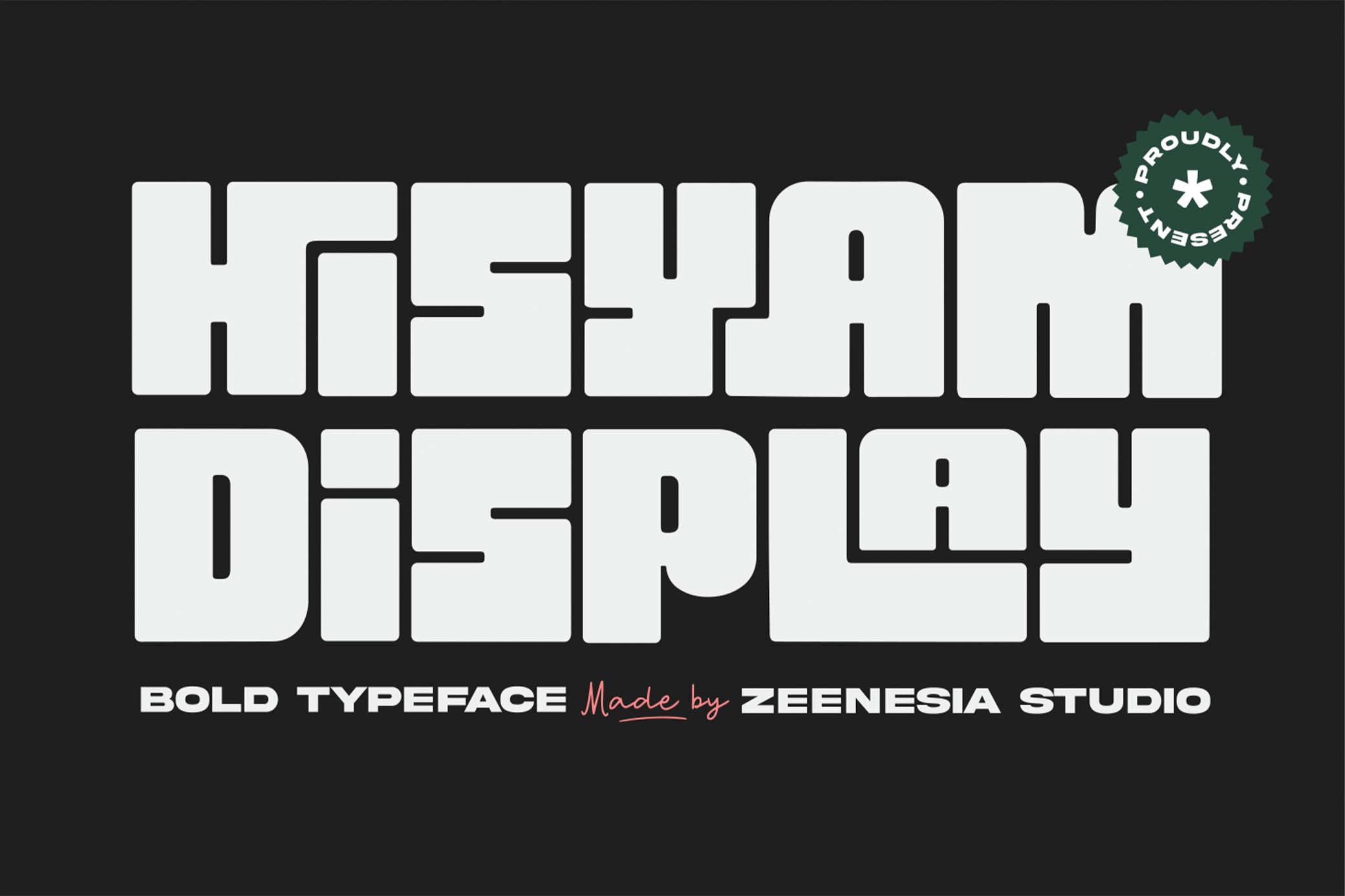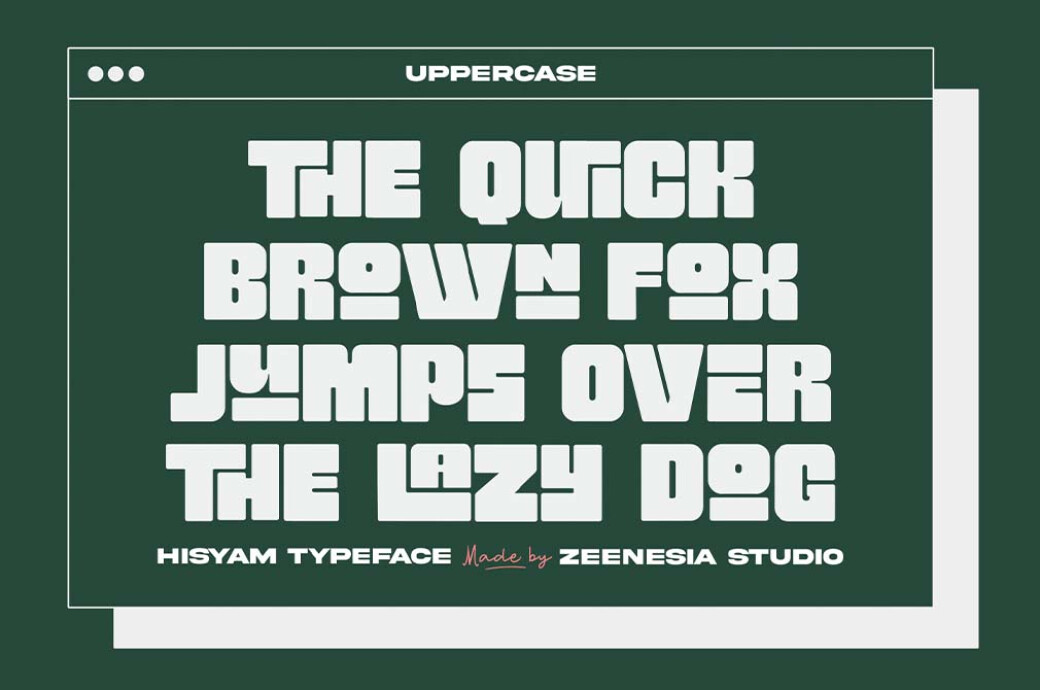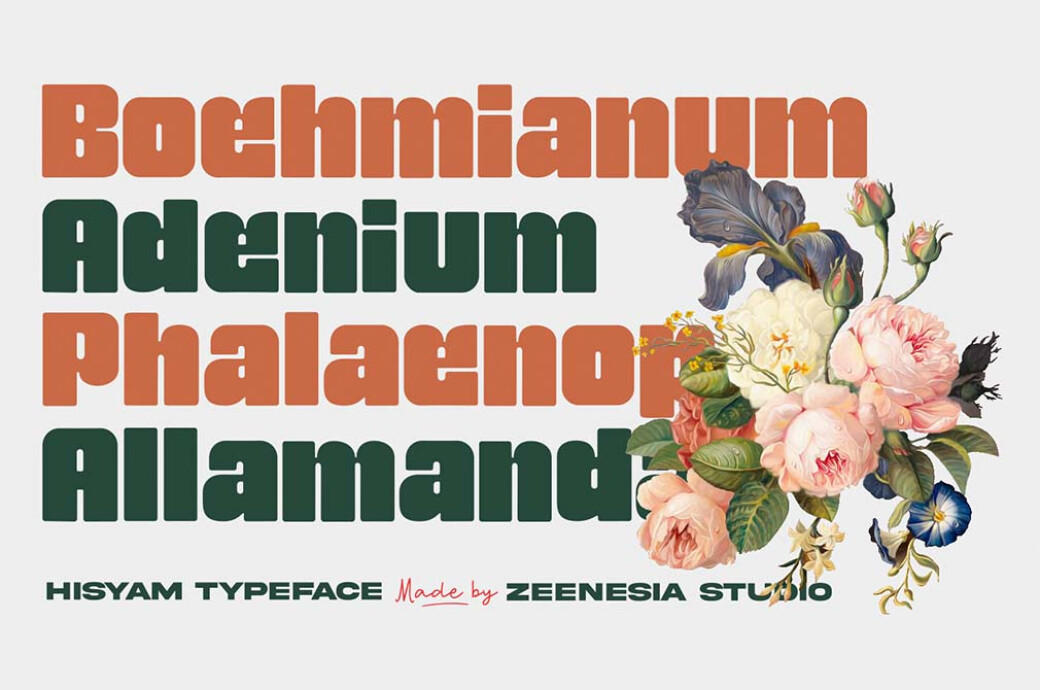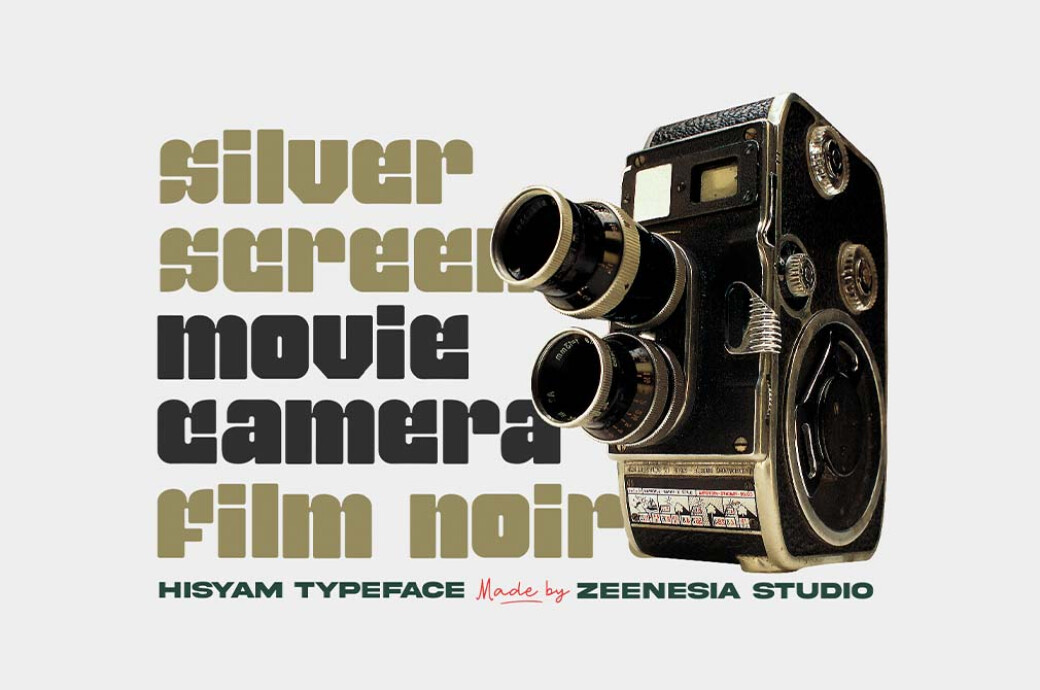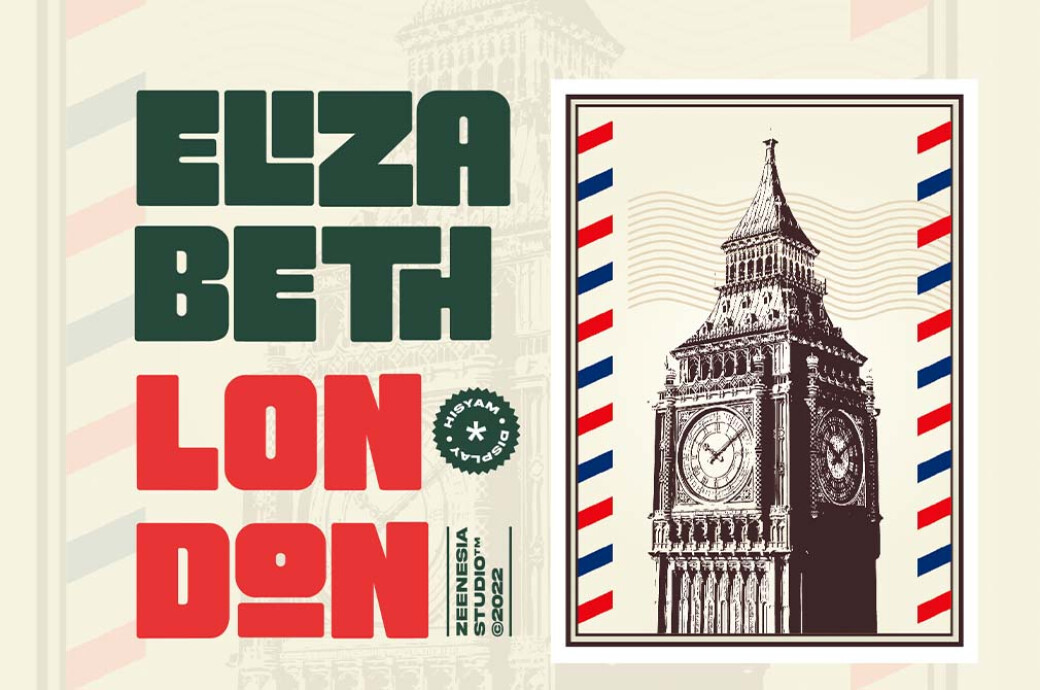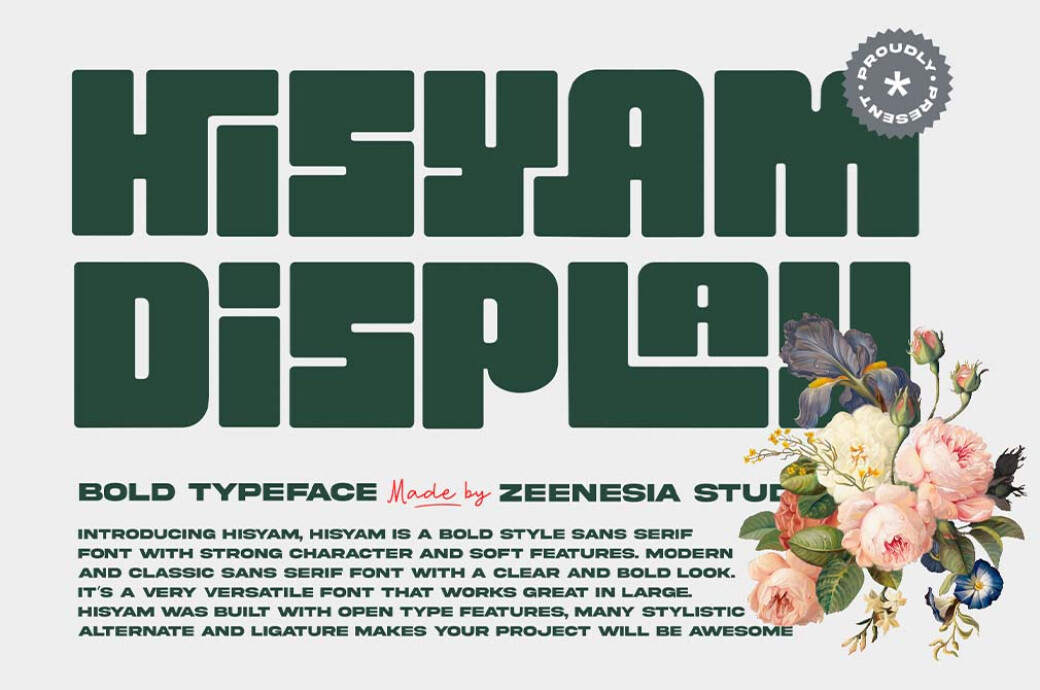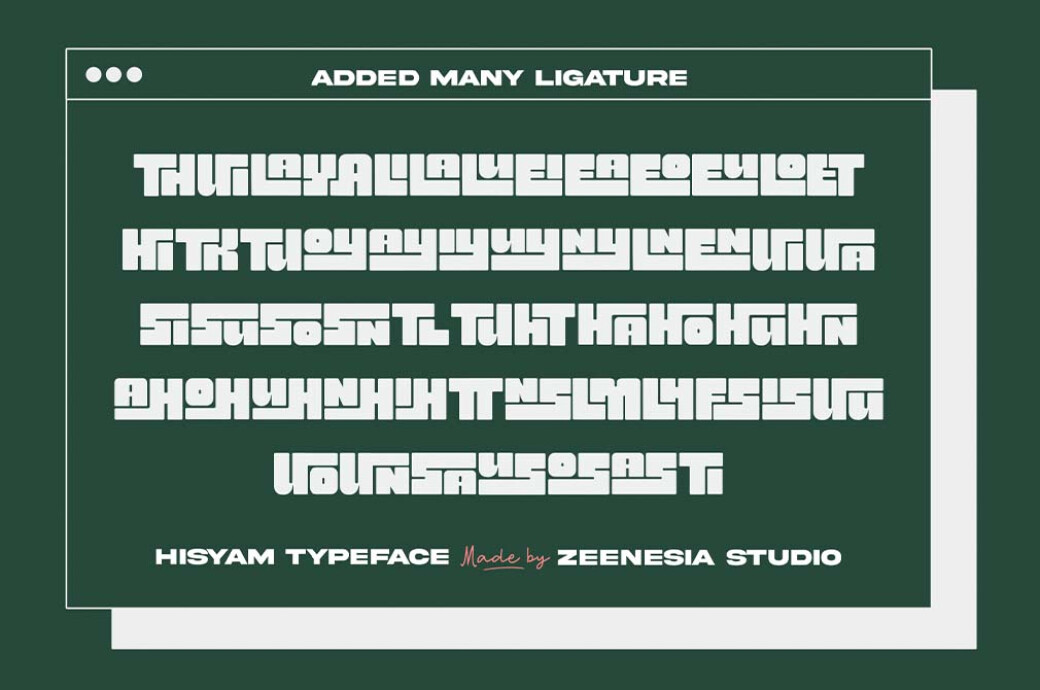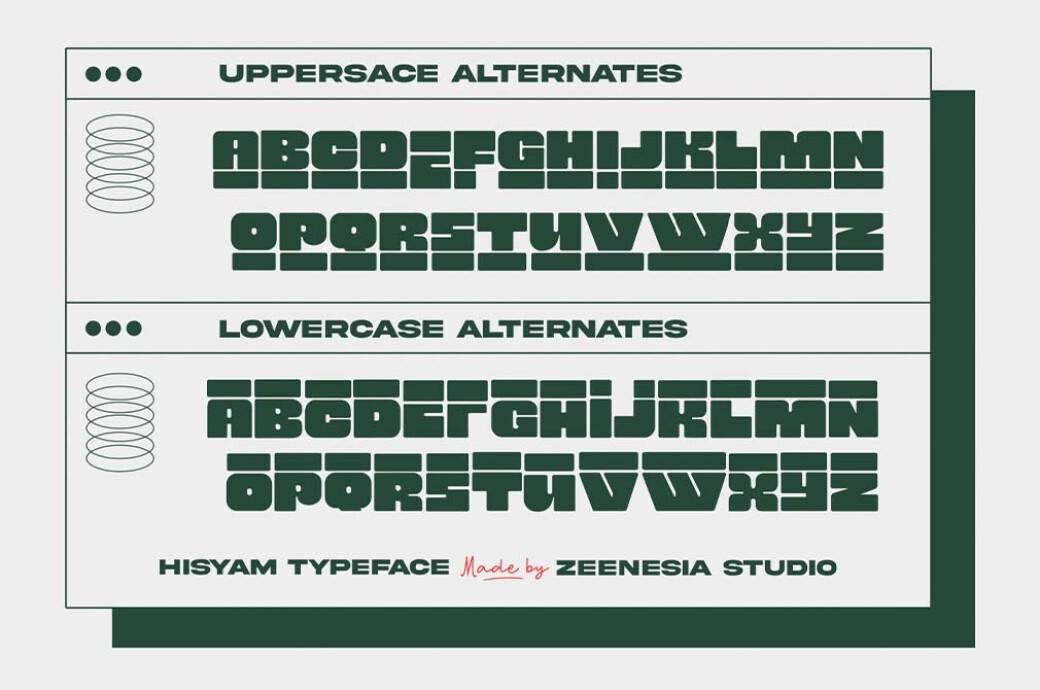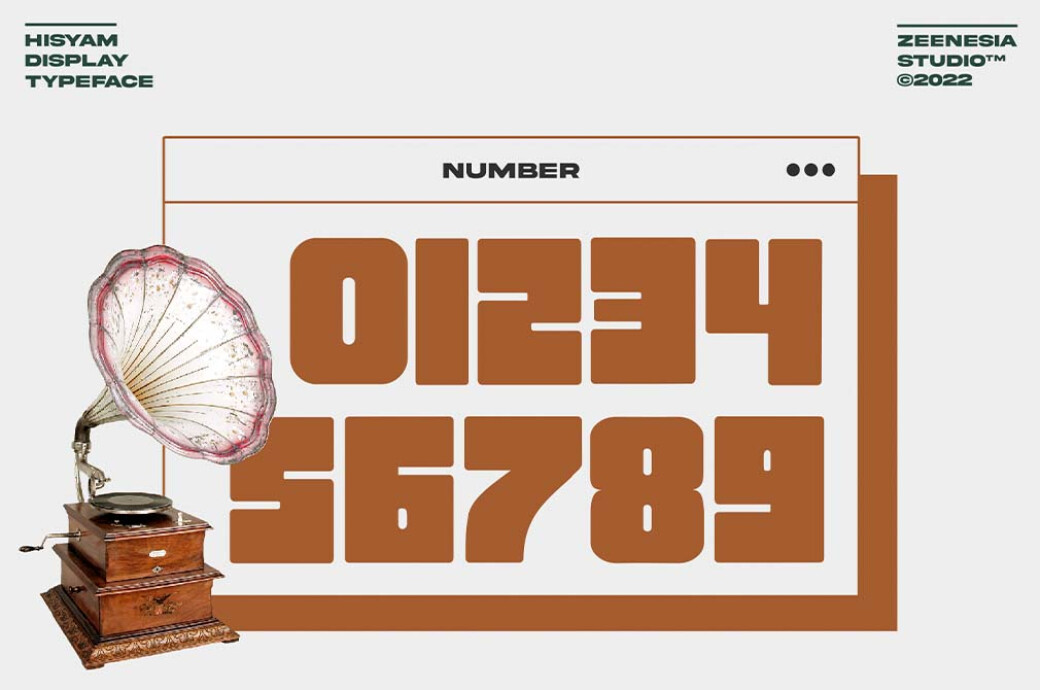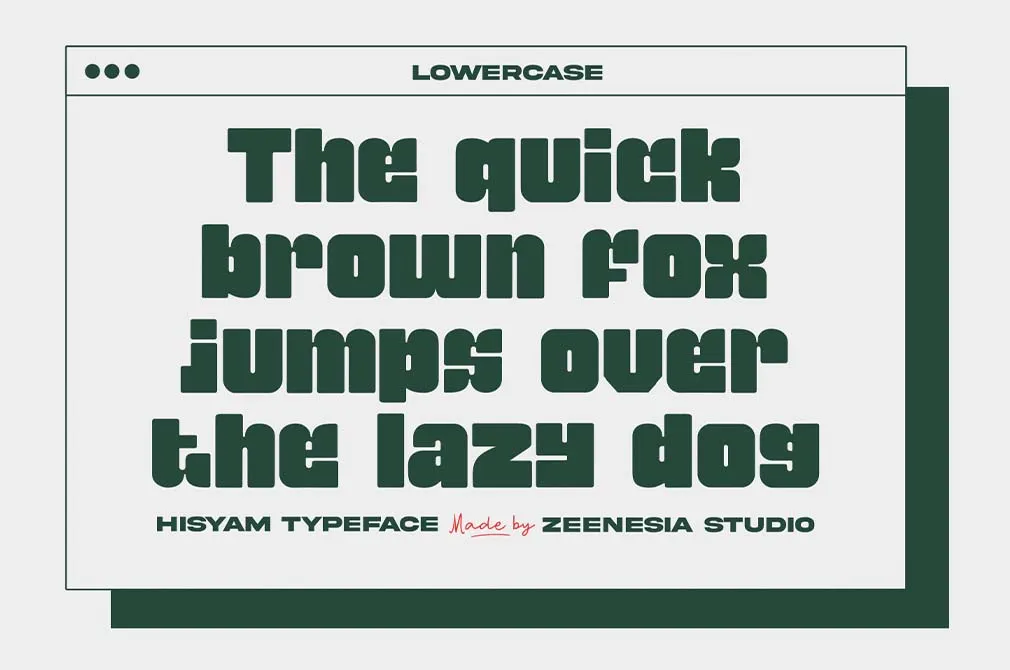
Hisyam Bold Typeface
If this font were humanized, it would be a bit grumpy on the outside person, with the cutie-pie heart hidden underneath this shell. Continuing the metaphor they would be loaded with a love for foreign languages and vintage aesthetics.
Just look at those soft curves and rounded corners! They add so much sophistication to the bold appearance, making this sans serif font suitable for a wide variety of large-scale projects from posters to magazine headlines. Hisyam typeface is super versatile in the matter of visual communication: standard set of upper and lower case letters, punctuation, numerals, an extended set of alternates and ligatures, multilingual support — it has it all.